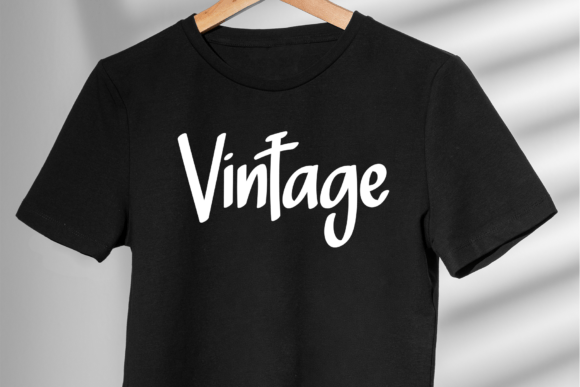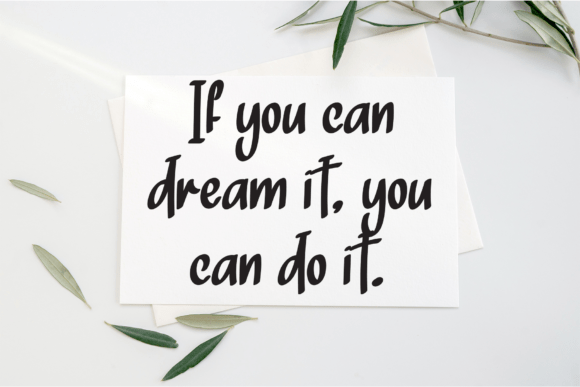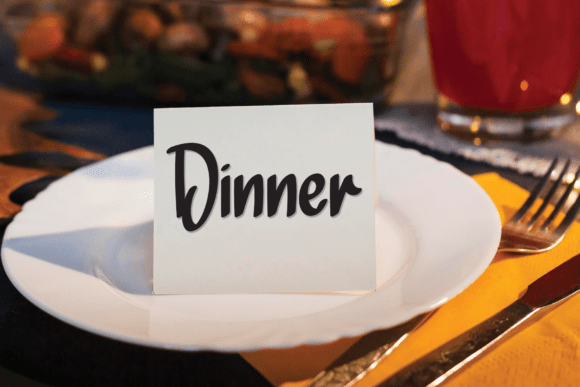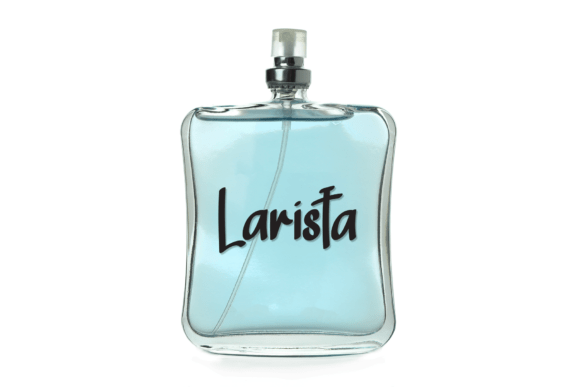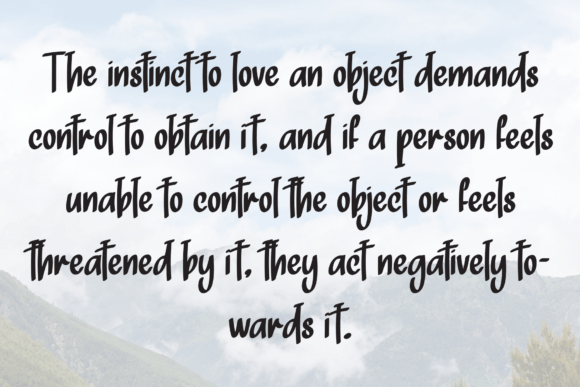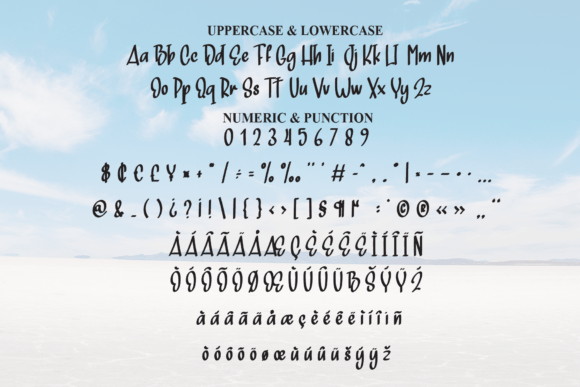
Introduction to Skyland Font
Have you ever been on a solo hike, surrounded by breathtaking scenery, and suddenly felt inspired to create something new? That’s exactly what happened to me on my last adventure. I was lost in the moment, watching the sun set behind a range of towering mountains, when I started brainstorming ideas for a new project. I wanted to capture the essence of the great outdoors and bring it to life with a font that embodied the freedom and adventure of exploring new landscapes.
Enter the Skyland Font, a bold handwritten font that perfectly captures the essence of the great outdoors. With its thick, vertically elongated letterforms and smooth character joins, this font is a standout choice for designers looking to add a touch of adventure to their next creative project. Whether you’re working on an outdoor lifestyle branding campaign or a travel-themed marketing initiative, the Skyland Font is a valuable design resource that’s sure to elevate your work.
Key Features of Skyland Font
- Transparent Background: The Skyland Font offers a transparent background, allowing for seamless integration into any design project.
- High-Quality Design Resource: This font is a valuable design resource, perfect for creative projects that demand a professional touch.
- High Resolution: The font is available in high resolution, ensuring crisp and clear typography, even at large sizes.
- Size: The font family includes multiple weights and styles, ranging from 100 to 900, providing designers with a wide range of creative options.
- Perfect for Creative Projects: The Skyland Font is ideal for creative projects that require a unique and eye-catching typography, such as logos, branding materials, and advertising campaigns.
Honest Review: Skyland Font
I recently stumbled upon the Skyland Font and was immediately drawn to its unique, hand-drawn style. As a designer, I’m always on the lookout for high-quality design resources to elevate my creative projects. This font definitely fits the bill.
- ✨ High-quality design: The Skyland Font is incredibly detailed and has a smooth, cohesive look.
- ✨ Versatile: This font can be used for a wide range of creative projects, from logos to headings.
- ✨ Easy to read: The font is clear and legible, even at smaller sizes.
- ⚠️ Limited character set: The Skyland Font only includes a basic set of characters, which may be a limitation for some users.
- ⚠️ Not suitable for transparent backgrounds: The font’s design doesn’t lend itself well to transparent backgrounds, which may be a drawback for some designers.
Overall, I’m impressed with the Skyland Font. While it may have some limitations, its unique style and high-quality design make it a valuable addition to any designer’s toolkit. And the best part? It’s a free download, making it accessible to designers of all levels.
The Skyland Font is perfect for creative projects that require a high-quality, modern font. Some common use cases include:
- Presentation design
- Document design
- Website design